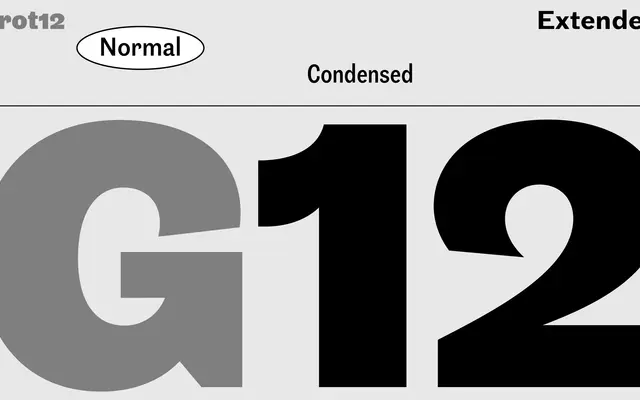
Grot12 Normal specimen from A2-Type
The standard-width cut of A2-Type's three-part grotesque family, drawn from the Stephenson Blake Grotesque series of the Industrial Revolution.
Part of a 42-style system spanning Condensed, Normal and Extended widths, this normal-width sub-family runs from Thin to Black with matching italics across seven weights. The reference point is the Stephenson Blake grotesque series, giving the design a characteristically British flavour rooted in nineteenth-century industrial print culture. It follows Grot10, A2-Type's earlier grotesque released in 2010, and functions well across editorial, identity and display contexts where historical British grotesque texture is wanted.
Directly inspired by the Stephenson Blake Grotesque series of the Industrial Revolution era, placing it firmly in the British grotesque tradition alongside its condensed and extended siblings.